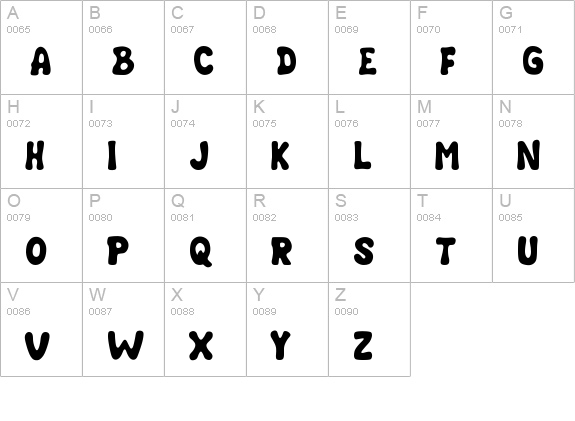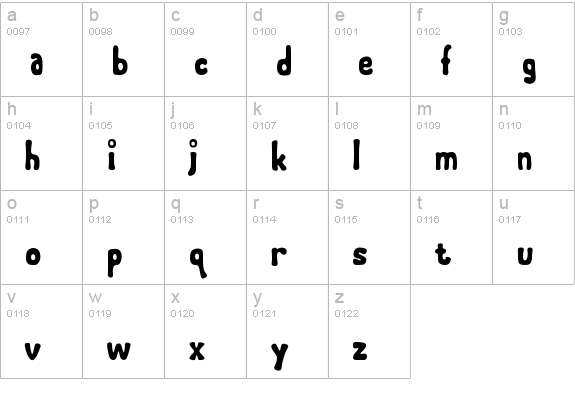
Chubby Cheeks font is the perfect combination of whimsy and charm, designed to bring a playful touch to your projects. With its rounded edges and bubbly appearance, this font exudes a sense of joy and light-heartedness. Whether you're creating invitations, posters, or social media graphics, Chubby Cheeks will add a delightful pop of personality to your designs. Best of all, Chubby Cheeks font is available for free download at FontsMarket.com. This means you can easily access this fun and versatile font without any cost. Don't miss out on the opportunity to add a touch of playfulness to your creations with Chubby Cheeks font - download it today and let your imagination run wild!